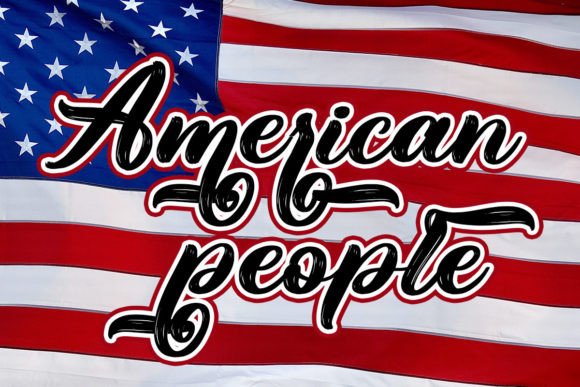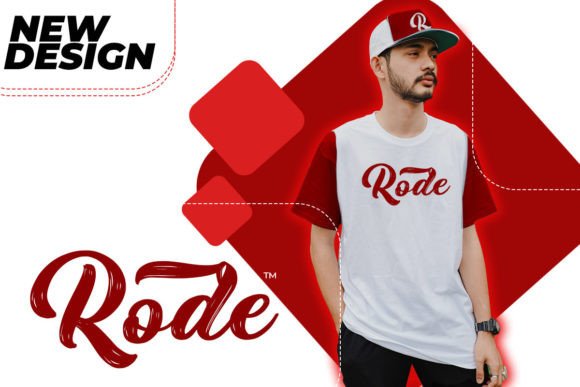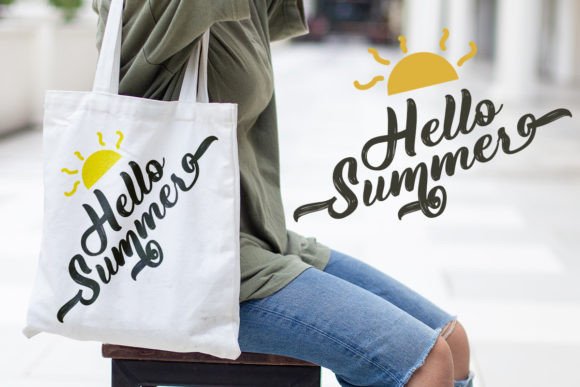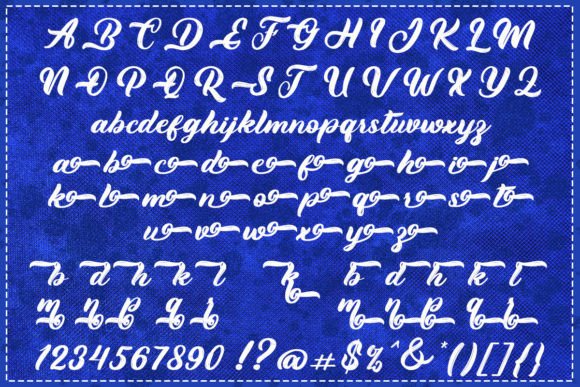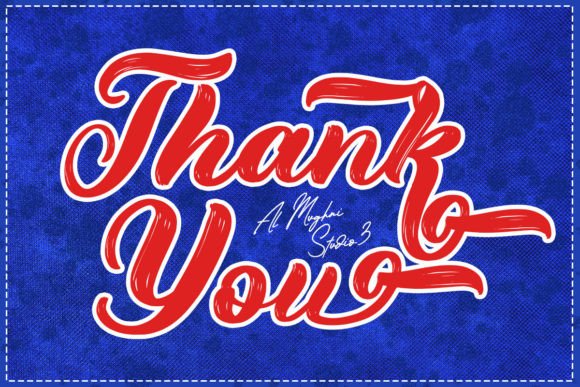
Introduction to Party Rock Font
Party Rock is a retro and cool handwritten font.
You can use this font for design purposes, web, logos, brochures, business cards, online stores, t-shirt designs, mockups, invitation cards, wedding cards, flyers, posters, and much more You can use this font easily because the kerning has been arranged neatly.